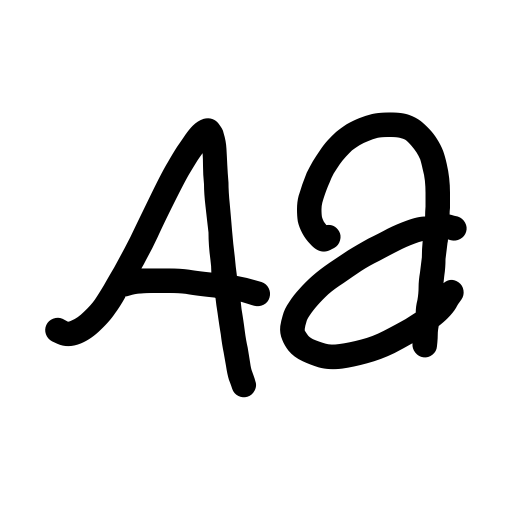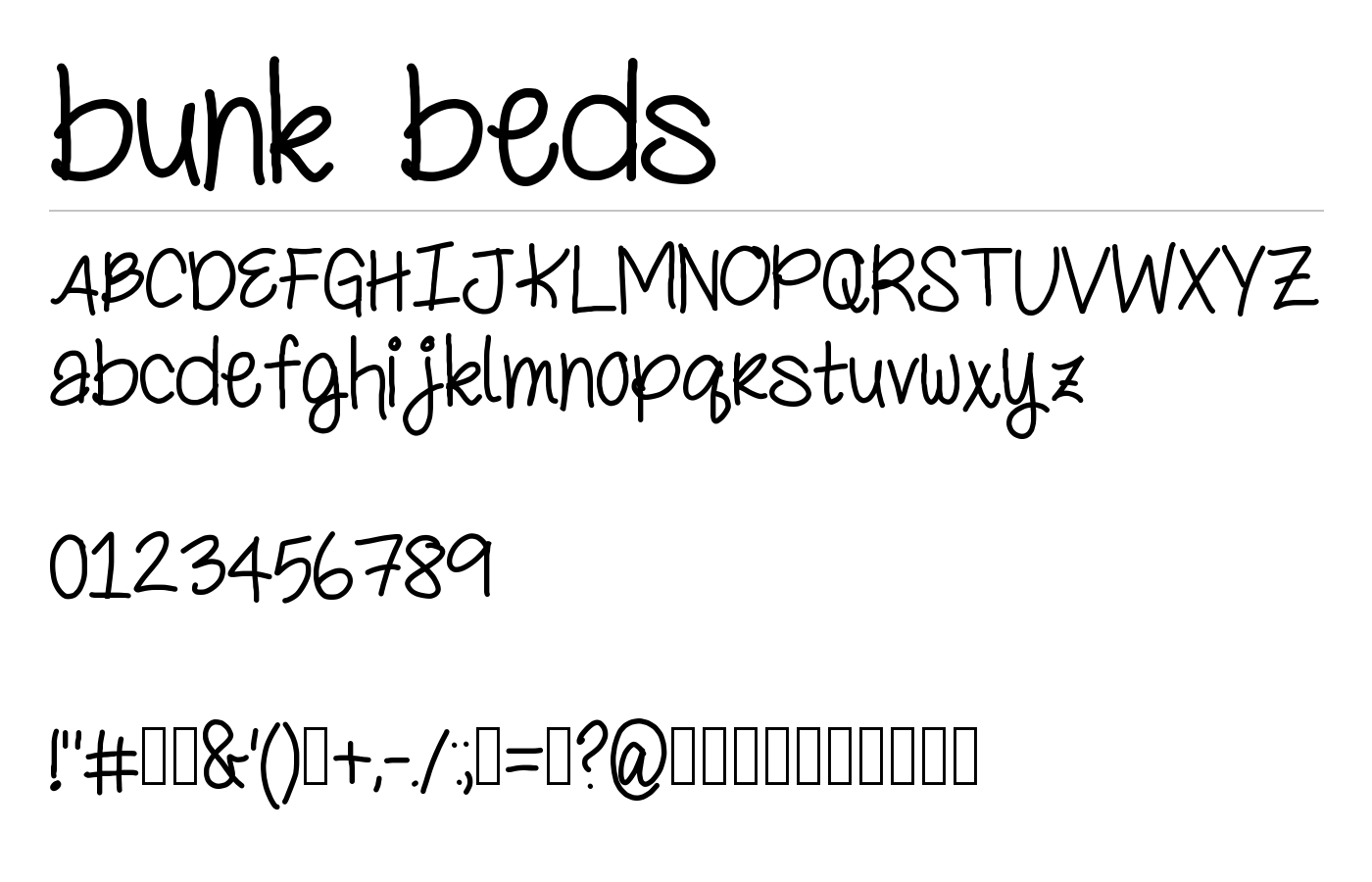
Bunk Beds is a playful, handwritten sans serif font with a casual and friendly vibe, featuring irregular stroke widths and lively, rounded letterforms that mimic natural handwriting. Its tall x-height and loose spacing make it highly legible while maintaining a warm, approachable character, ideal for informal and creative projects. This font works best in children's books, greeting cards, posters, and branding that aims to convey fun, youthfulness, and personality.